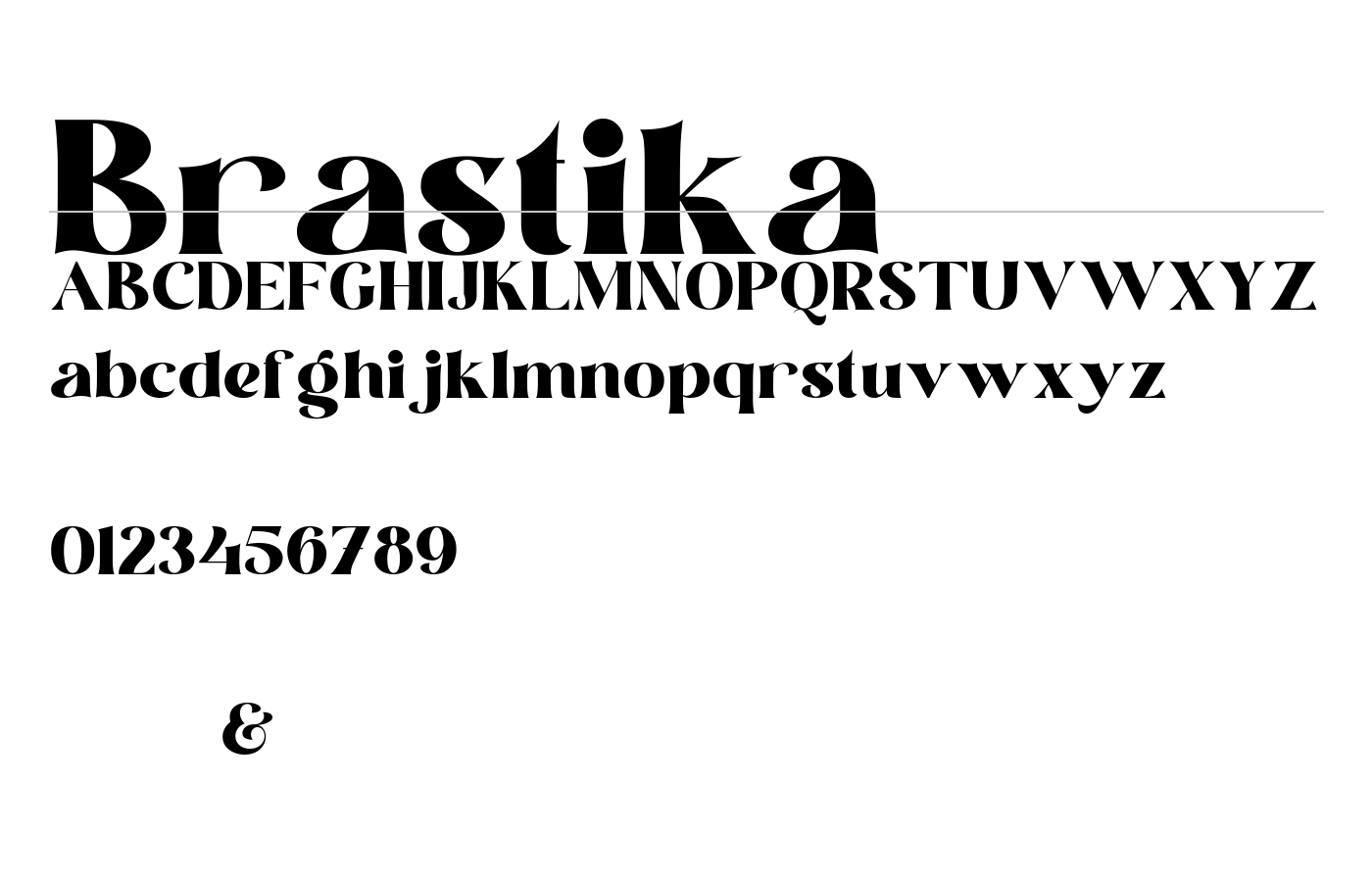
Brastika is a bold, high-contrast serif font with a distinctive modern flair, featuring strong vertical strokes and sharply flared serifs that give it a dramatic and elegant presence. Its slightly condensed letterforms and clear double-story characters make it perfect for eye-catching headlines, logos, and luxury branding, where a sophisticated yet powerful look is desired. This font works well in print and digital design environments that aim to convey confidence and stylish refinement.
Brastika Font
About Brastika Font